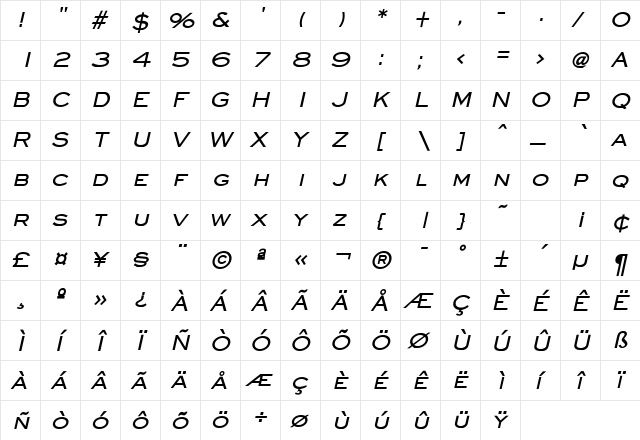
Eye glass Bold Italic
Design Context for Eye glass Typeface
Eye glass takes a measured approach to typography — its balanced proportions and neutral character make it a reliable workhorse for both digital and print work. The slanted form adds forward momentum and visual energy. The heavy weight commands attention and anchors typographic hierarchies.